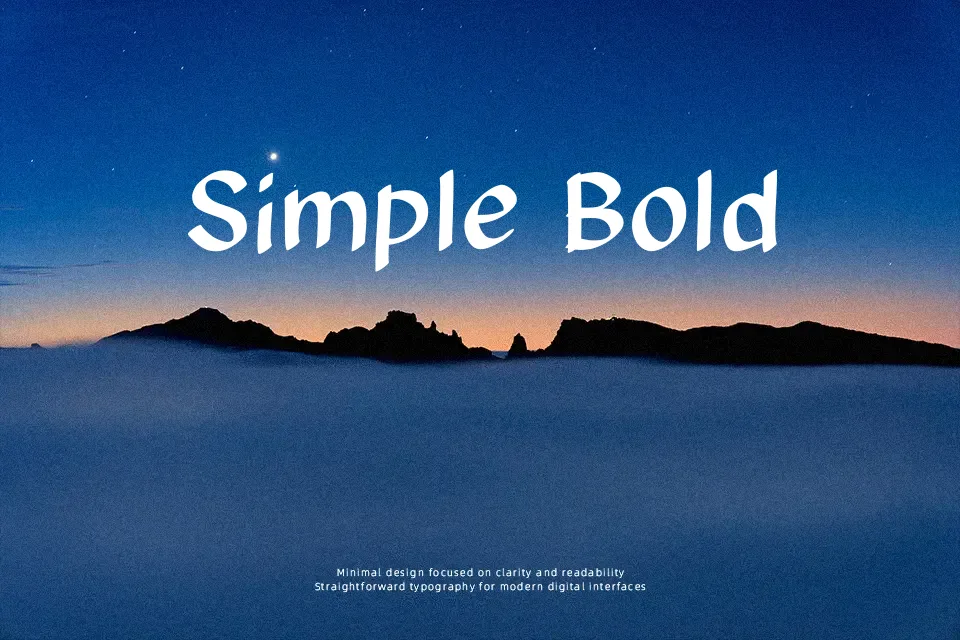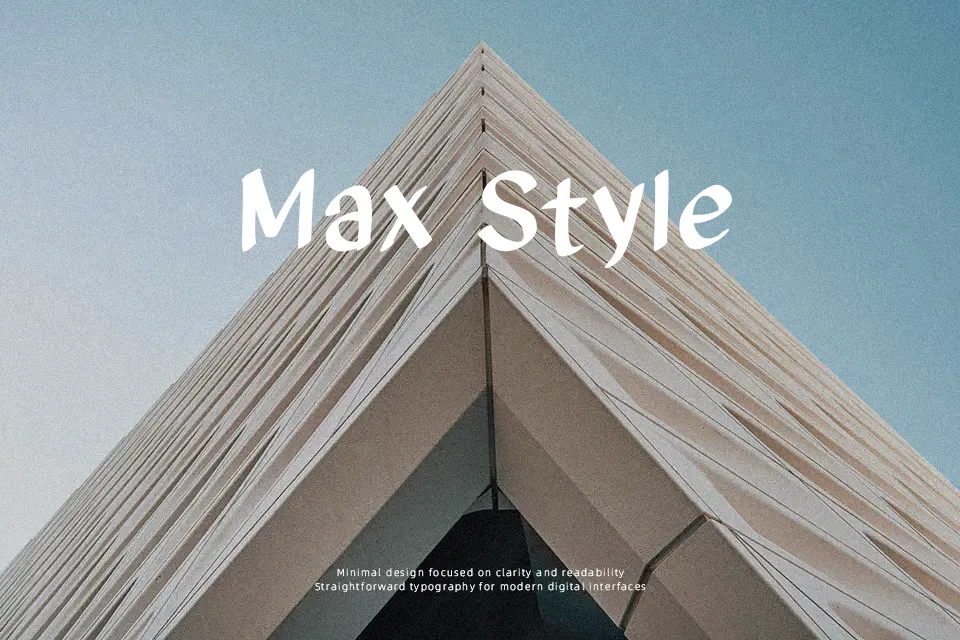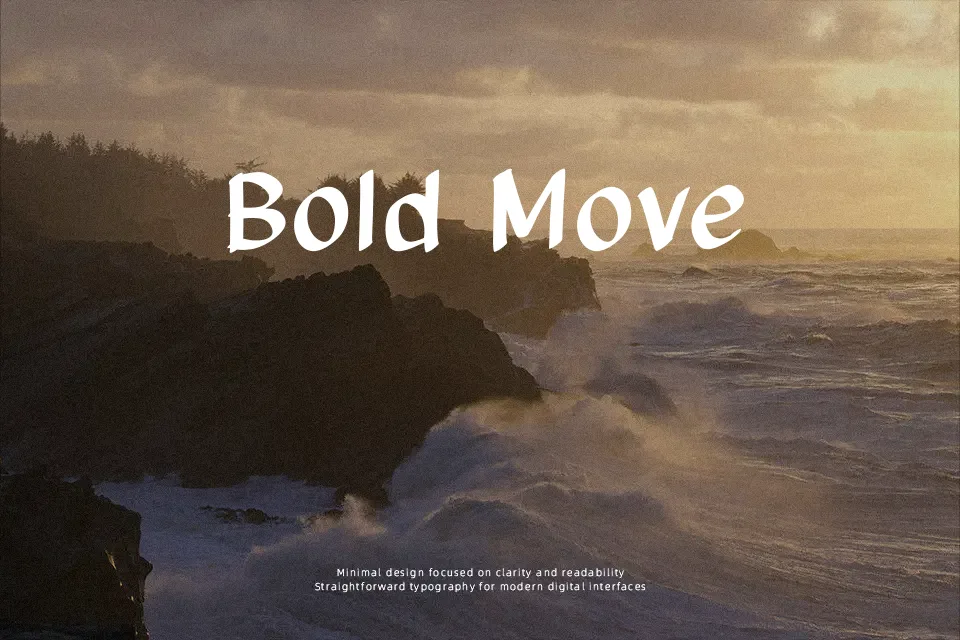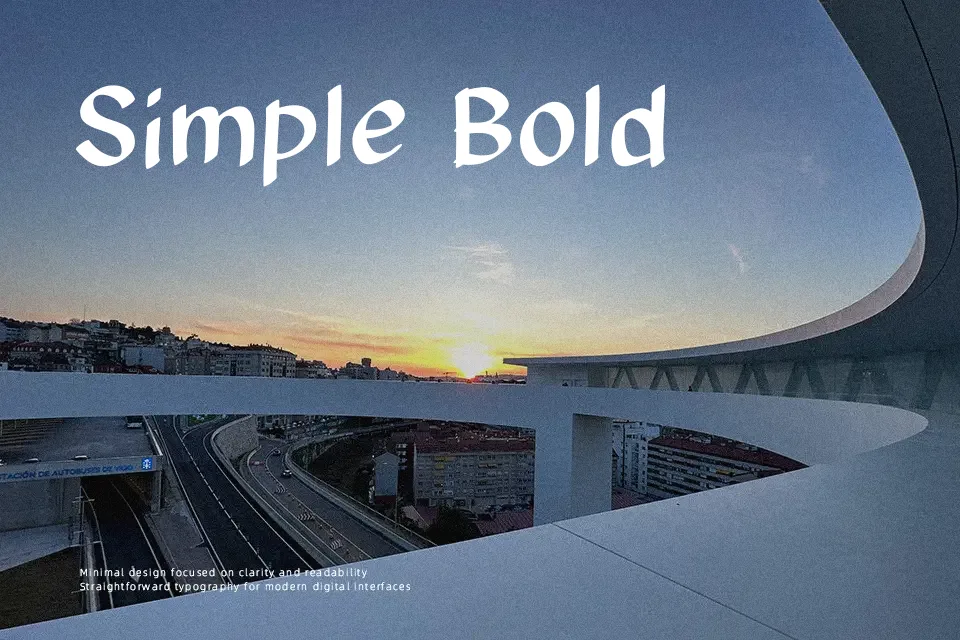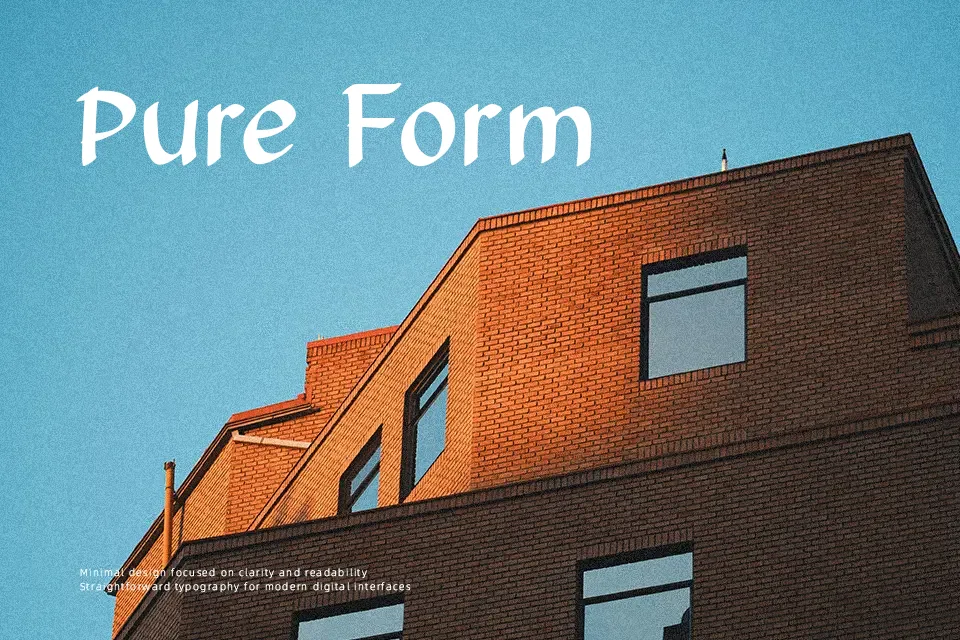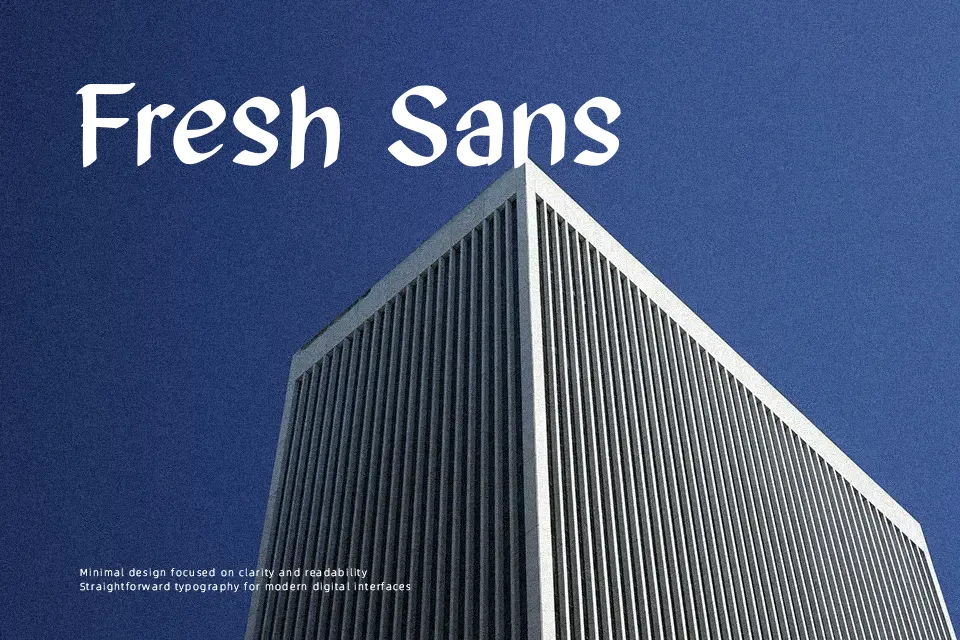
Spicy Tacos Font
Spicy Tacos Font uses heavy, rounded forms and lively, uneven details that give short words a casual comic presence. The strokes appear thick with low contrast, while the broad proportions keep individual letters noticeable in display settings. Spacing feels suited to compact headlines rather than tightly packed copy, helping the typeface retain its character on posters and packaging. It works especially well where a cheerful, informal tone is needed, such as menu headings or children’s designs. The decorative shapes are easy to recognize at larger sizes, but they become less efficient for small labels and continuous reading.
Perfect for headline, kids, and packaging, with a bold and comic style.